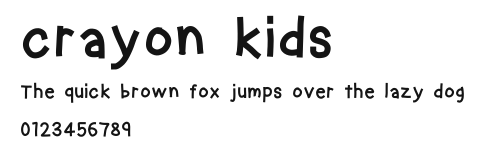
• Font Name: crayon kids
• Full Font Name: crayon kids
About crayon kids.ttf
crayon kids.ttf is a modern, elegant sans-serif font designed for ultimate readability and visual harmony. Perfect for branding, headlines, web design, and print materials.